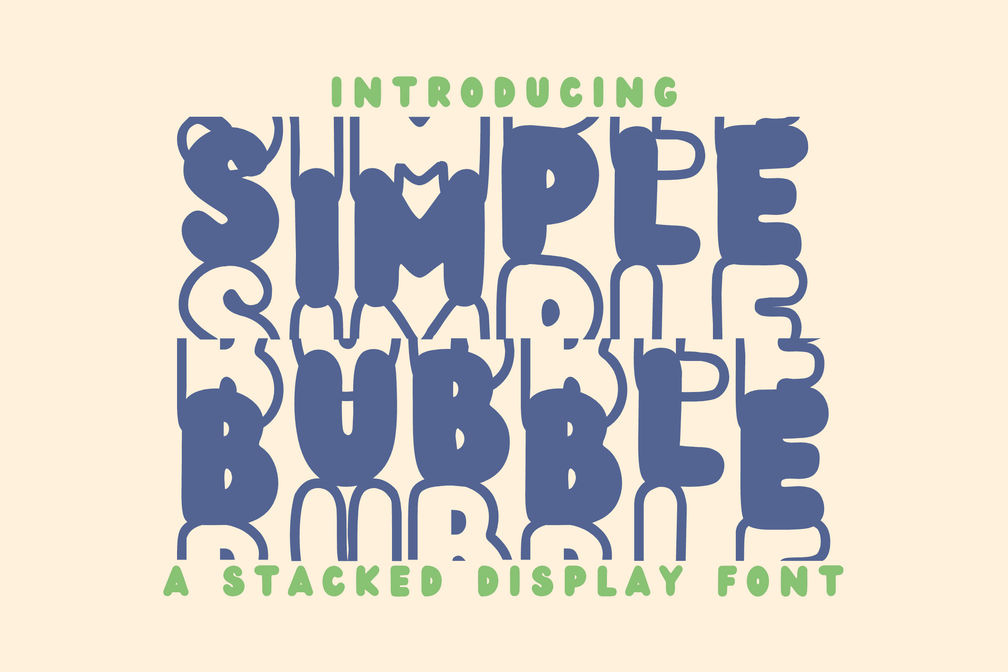
Simple Bubble Stacked
Bubble Stacked – Playful Layered Display Font
Bubble Stacked is a fun and bold display font featuring a layered, stacked design with a bubbly touch. Perfect for playful and eye-catching projects, this font adds a unique dimensional effect to your text, making it ideal for branding, posters, merchandise, and creative designs.
• Stacked and Layered Style: Creates a dynamic and bold text effect.
• Perfect for Playful Designs: Ideal for logos, posters, kids’ projects, and social media graphics.
• Bold Display Font: Designed to stand out with thick, rounded shapes.
• Complete Character Set: Includes uppercase, lowercase, numbers, punctuation, and symbols.